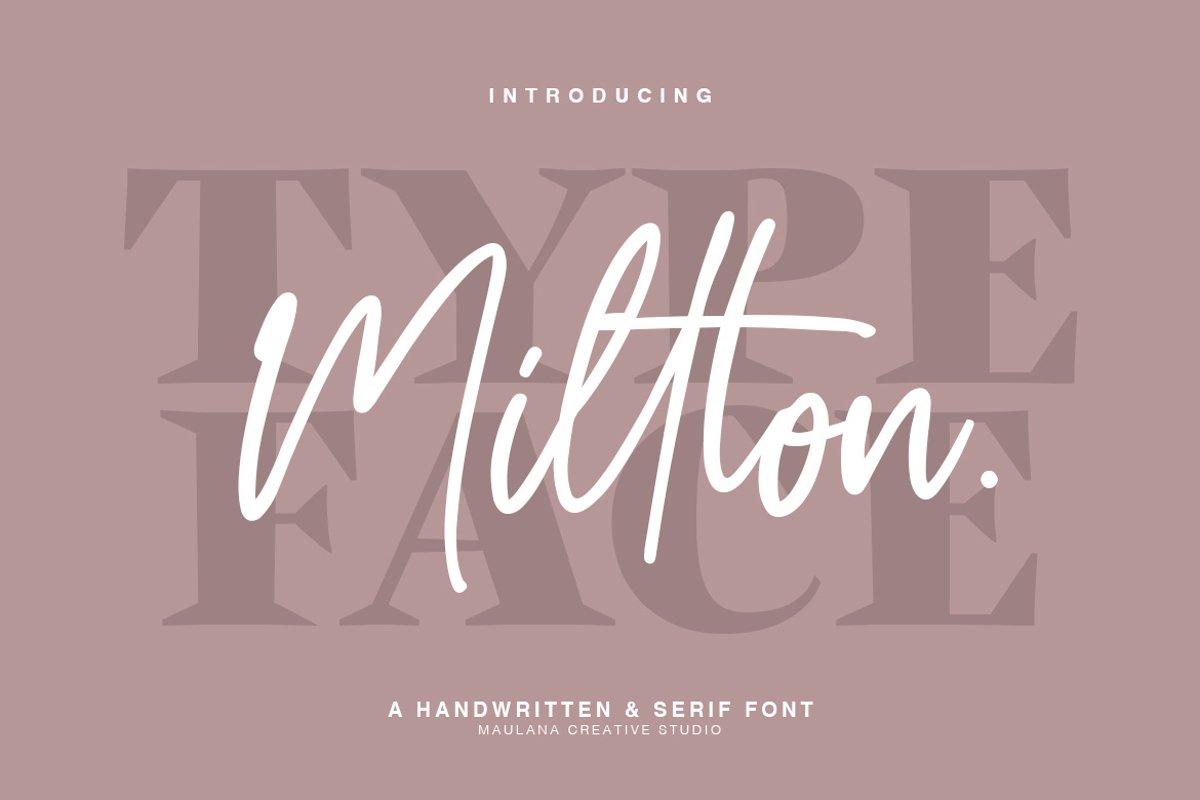
Millton - Font Duo is a calligraphic manuscript modern, dynamic and pretty with sans-serif. Can be used for many purposes. Such as title, signature, logo, wedding invitations, letterhead, signage, labels, newsletters, posters, badges, etc.